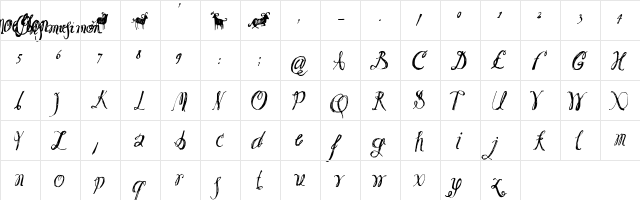
Moeflon Italic Font Preview
Moeflon Italic
Moeflon Italic Font Details
| Foundry | Piet Brantjes |
| Designer | Piet Brantjes |
Design Context for Moeflon Typeface
Moeflon is a composed and adaptable typeface that performs quietly and consistently across a wide range of design contexts. Its italic angle brings a sense of urgency and motion to the letterforms.
Pro Tip: Use Moeflon for emphasis, pull quotes, and subheadings where its slanted energy can add rhythm to the layout.